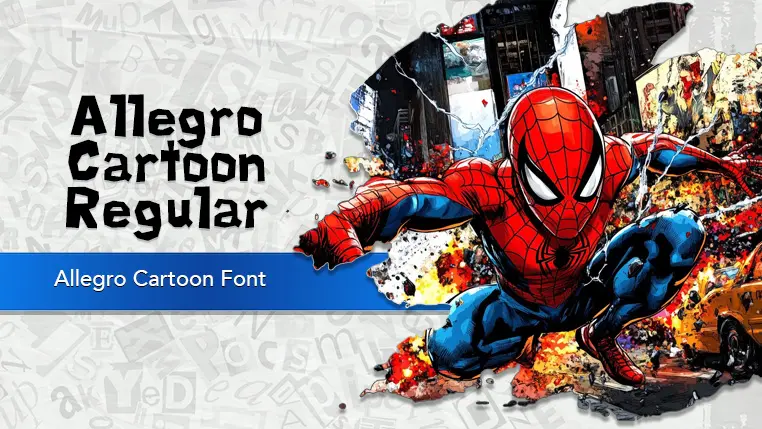
The Allegro Cartoon font family may be ideal for you if you enjoy working on an artistic design project. The lively, expressive look of this typeface, which was created by Sos Sosowski, makes it ideal for Use in Game Development(Titles, menus, and in-game text for casual games, Dialogue in comic-style game, Loading screens or achievement pop-ups) and other light-hearted visual projects.
Regular are the one primary font styles of the Allegro Cartoon font family. You may build dynamic, visually appealing text layouts with the distinct flair that each style offers. With crisp, readable lines and a relaxed tone.